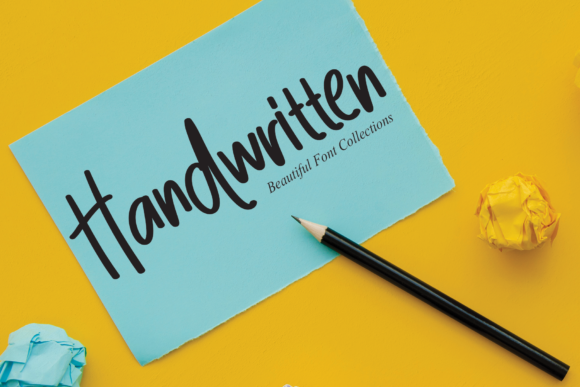
For You Font
db-ku.com - Script & Handwritten -- For You is a relaxed and subtle handwritten font that is crafted with great care for maximum results. It will add elegance and class to any of your design projects.